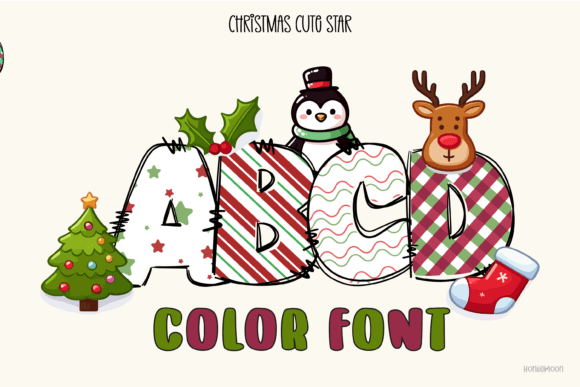
Christmas Cute Star Color Fonts for Festive Designs – Trendy Handwritten, Display, & Decorative Styles.Enhance your festive designs with our creative alphabet fonts! Choose from trendy handwritten, display, and decorative styles for invitations, logos, posters, and more.